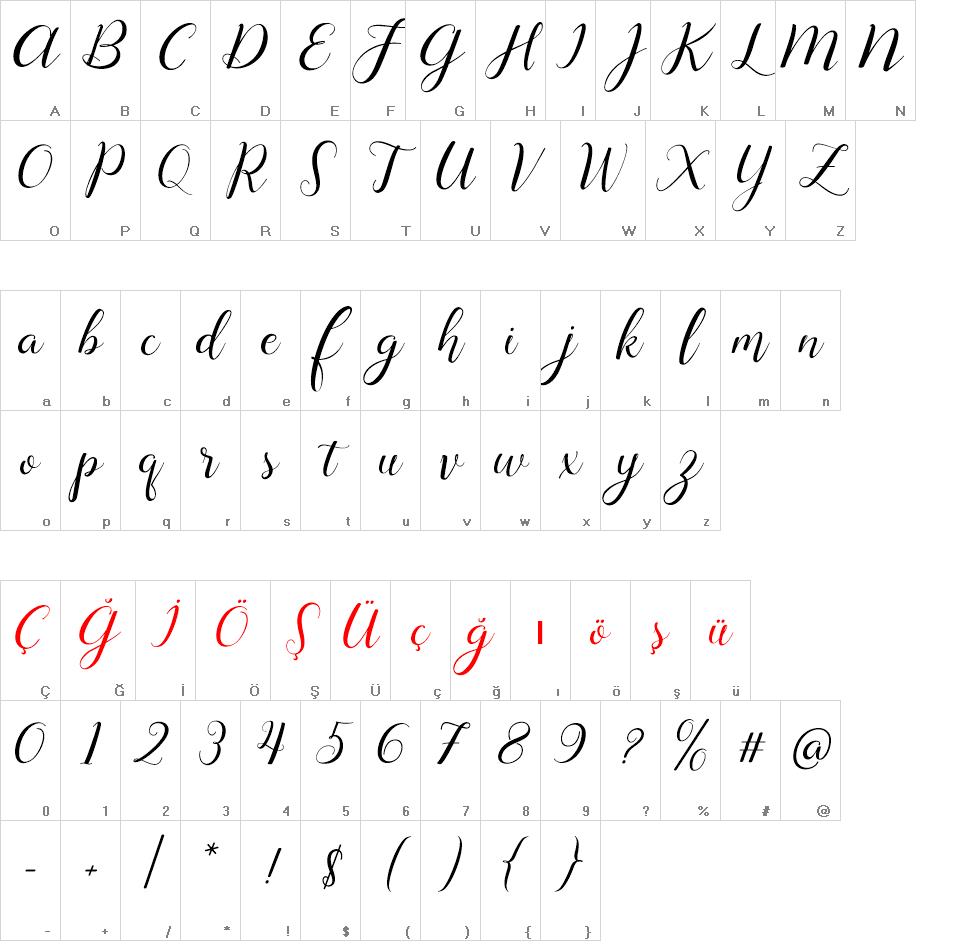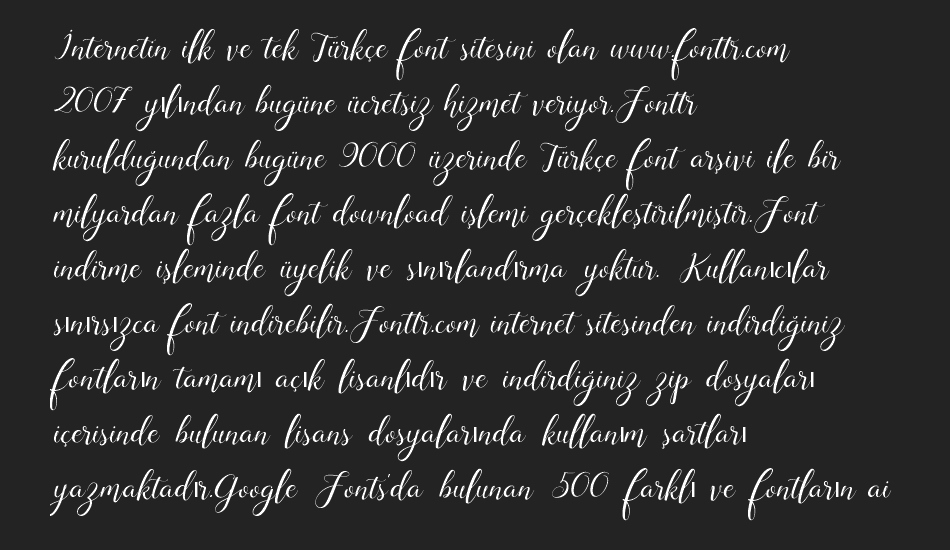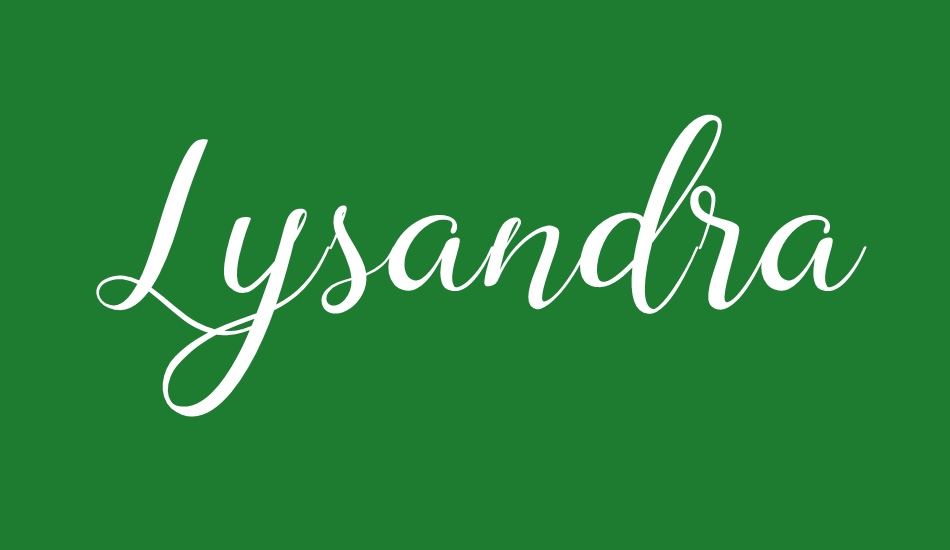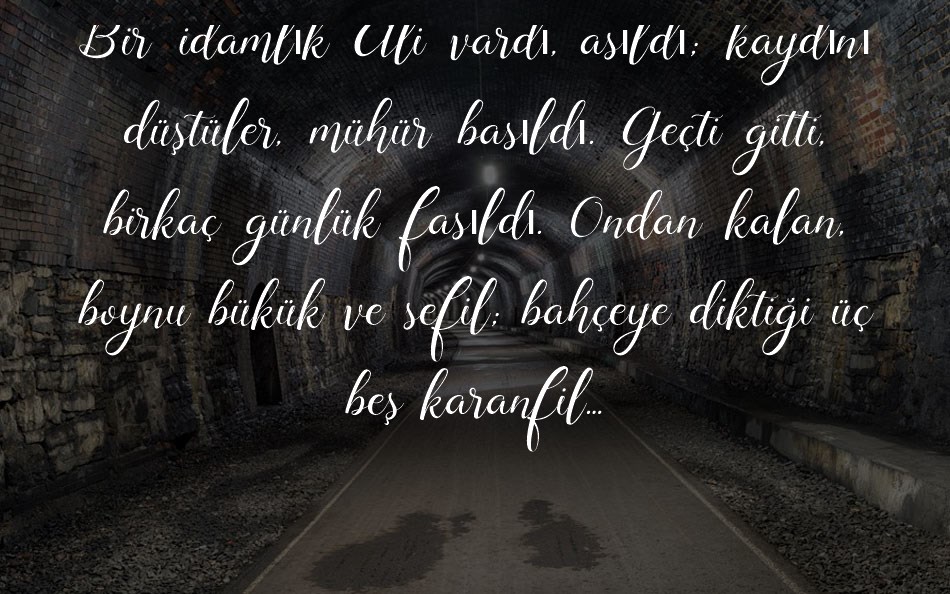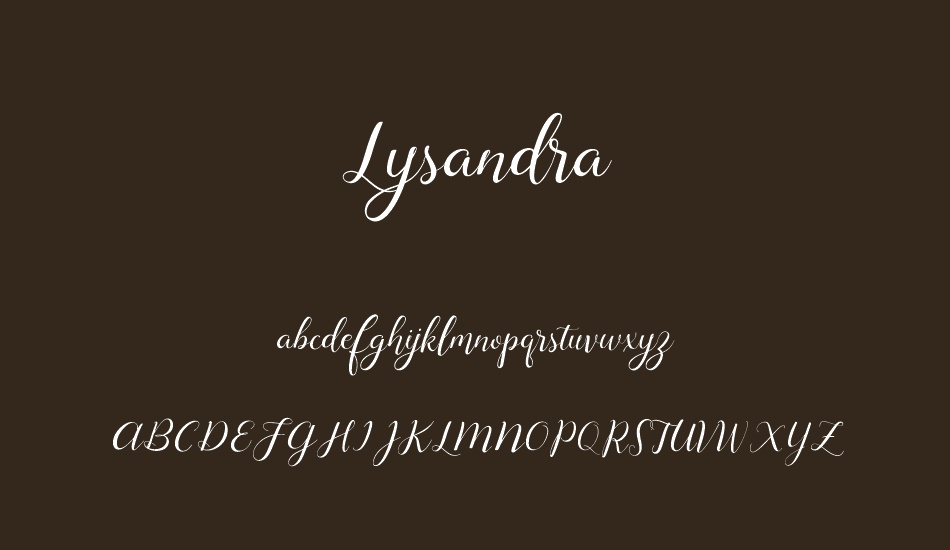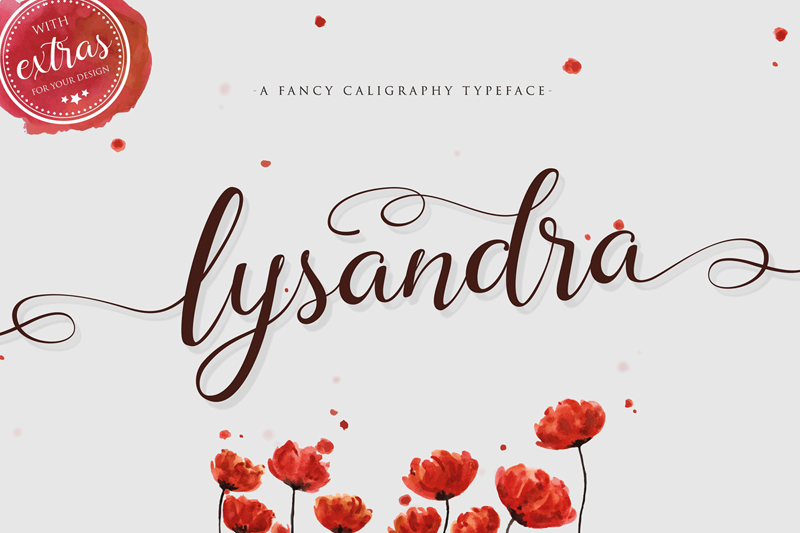
Lysandra font
Lysandra Typeface is a modern font with more featured and made with love :). Lysandra Typeface have a complete glyphs, this font suitable for wedding invitation, greeting cards, T-Shirt, Logo or any design that you create. comes with a complete set of standard characters, Alternates, Ligature Variation, Punctuation & have extra textured version for your design and many more.